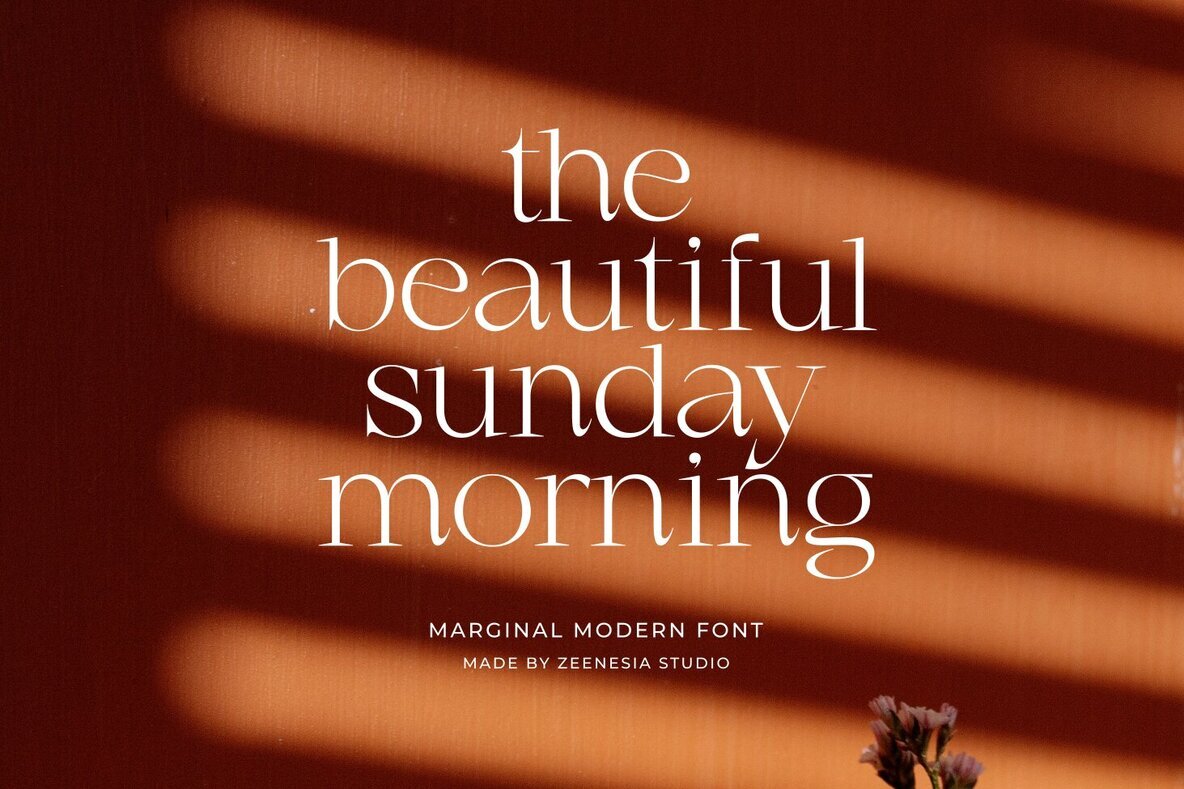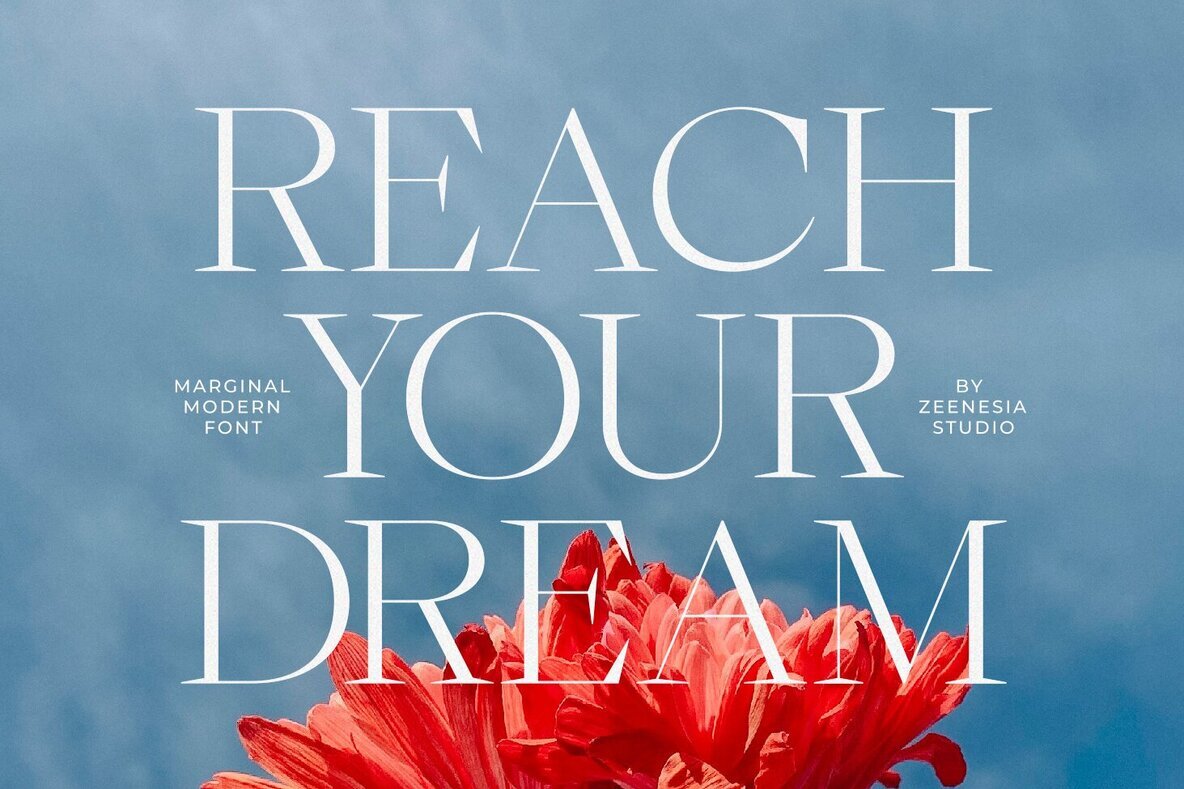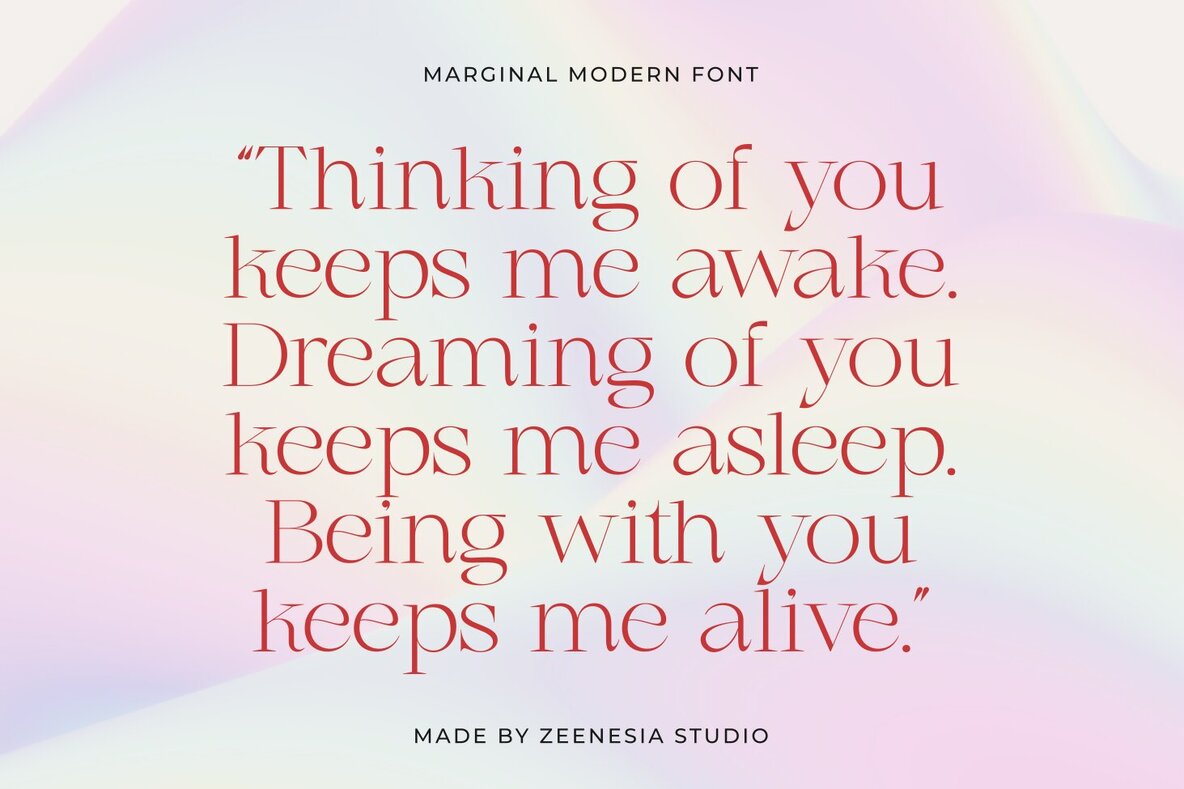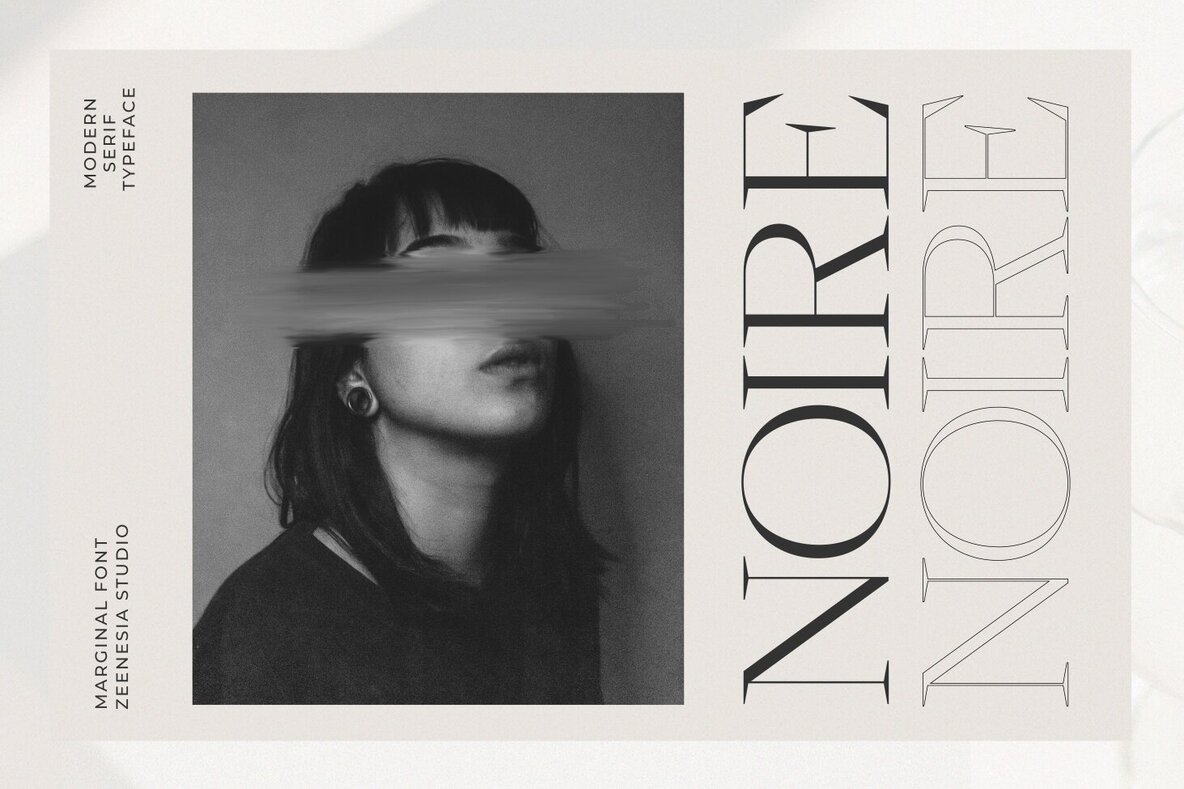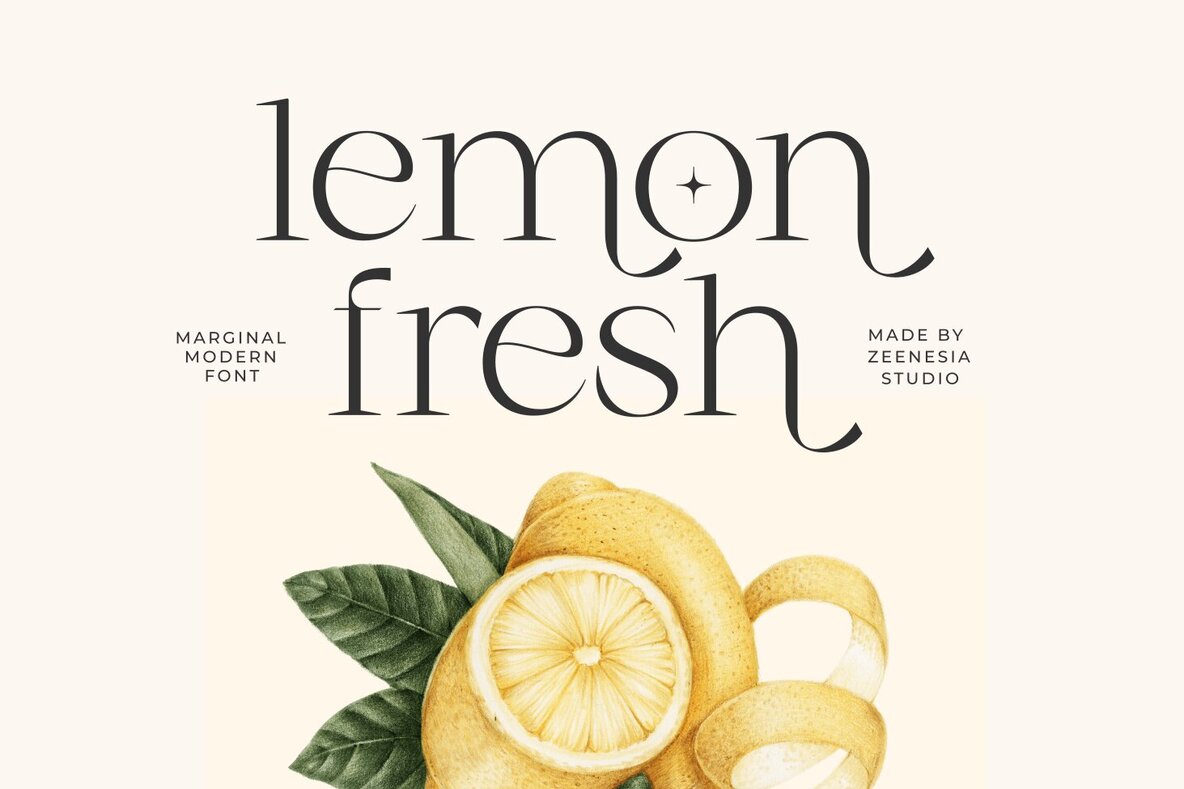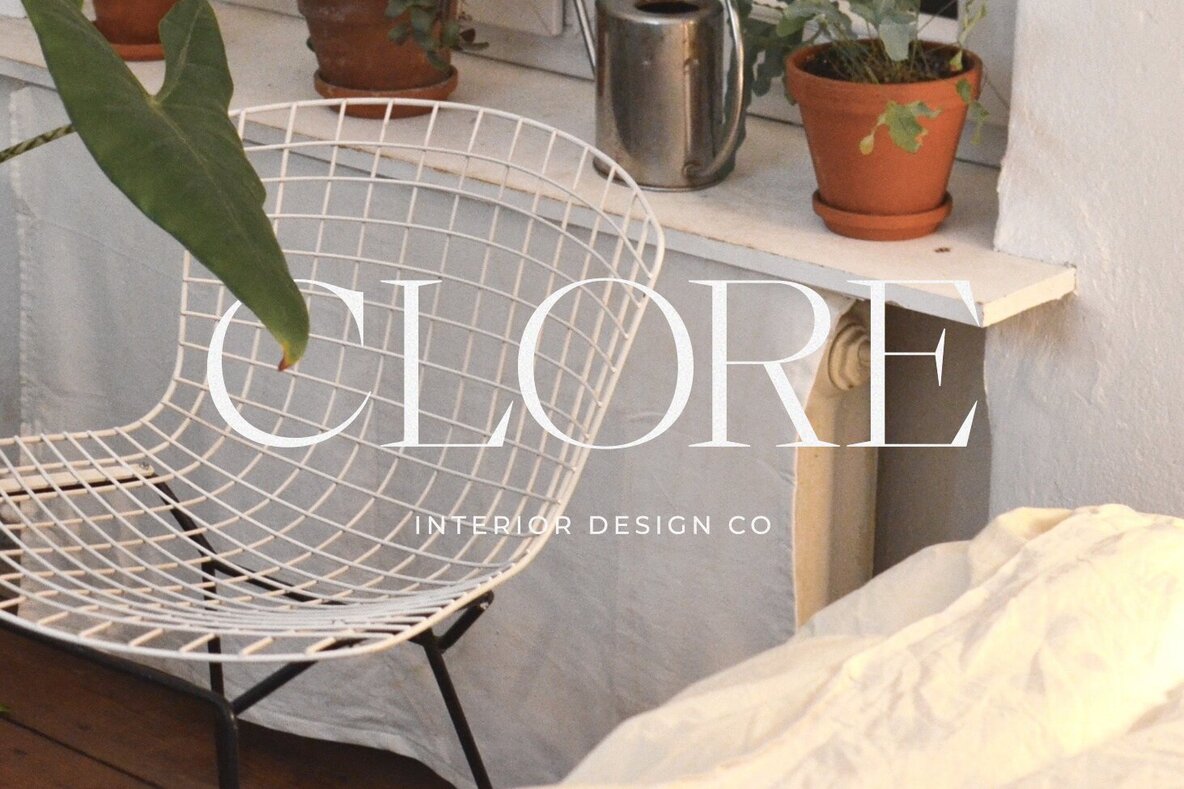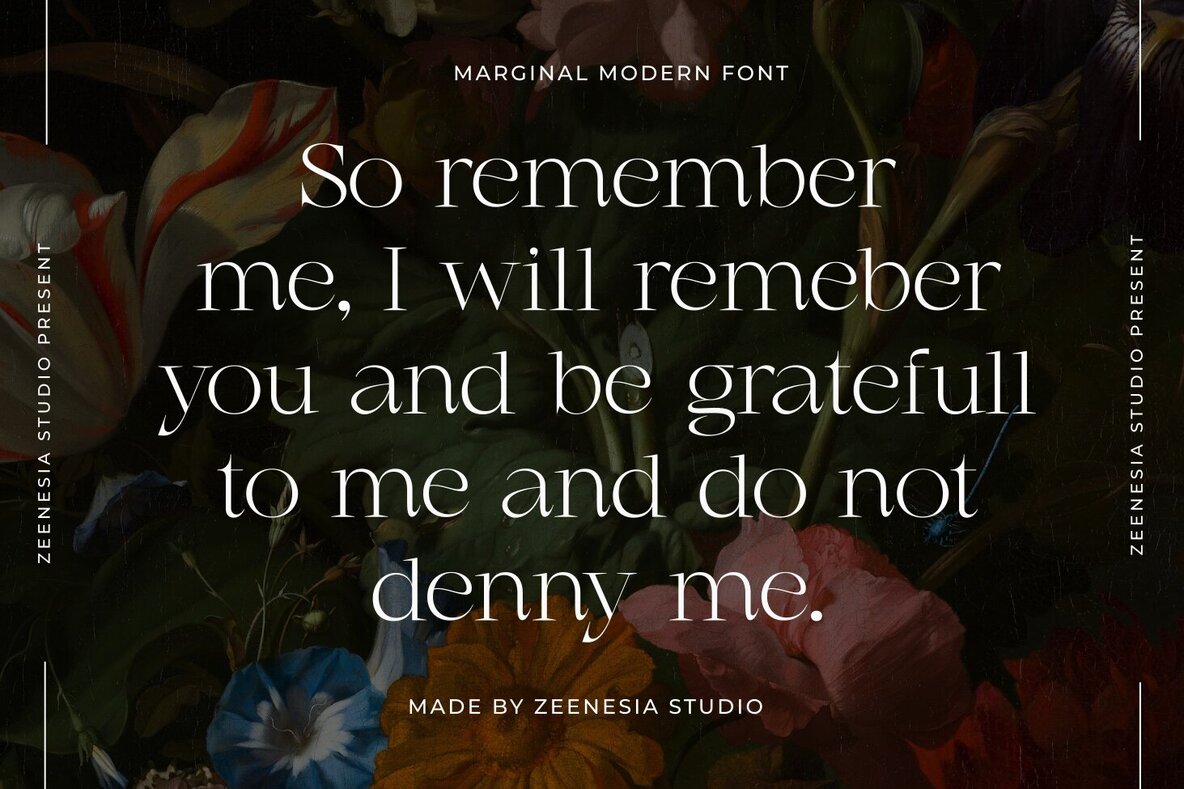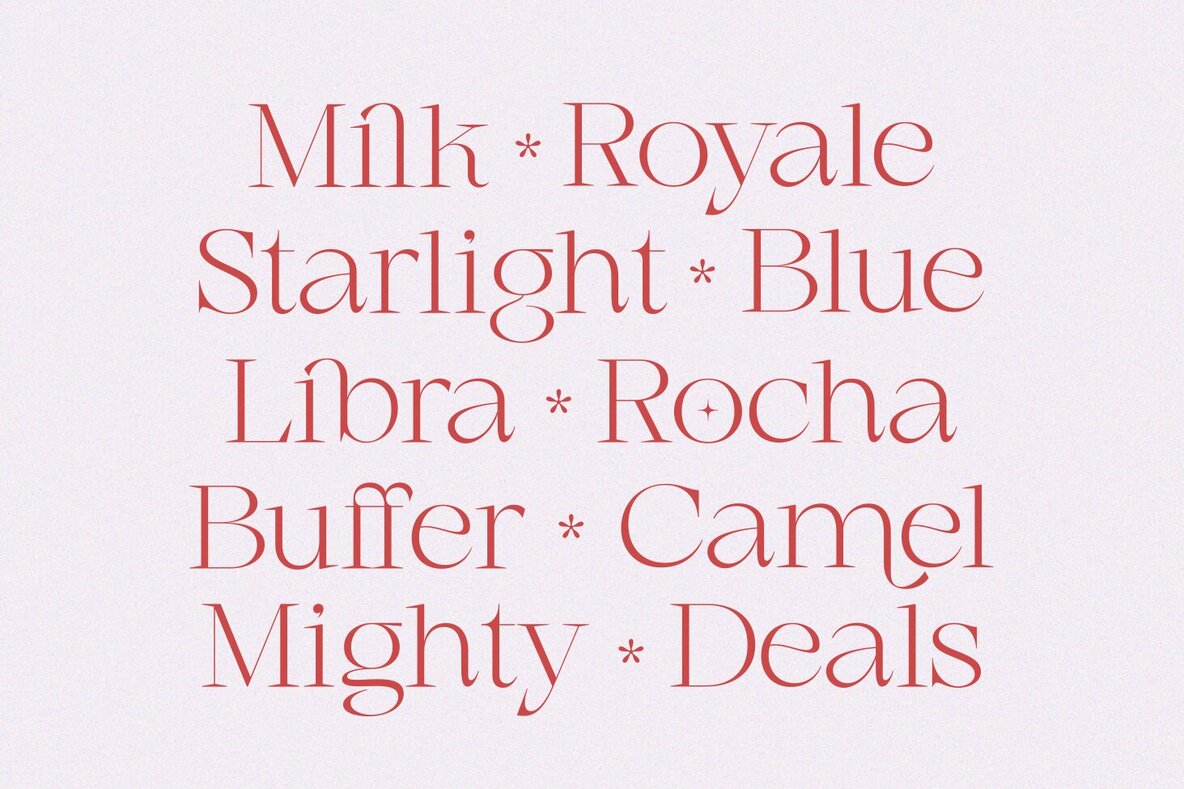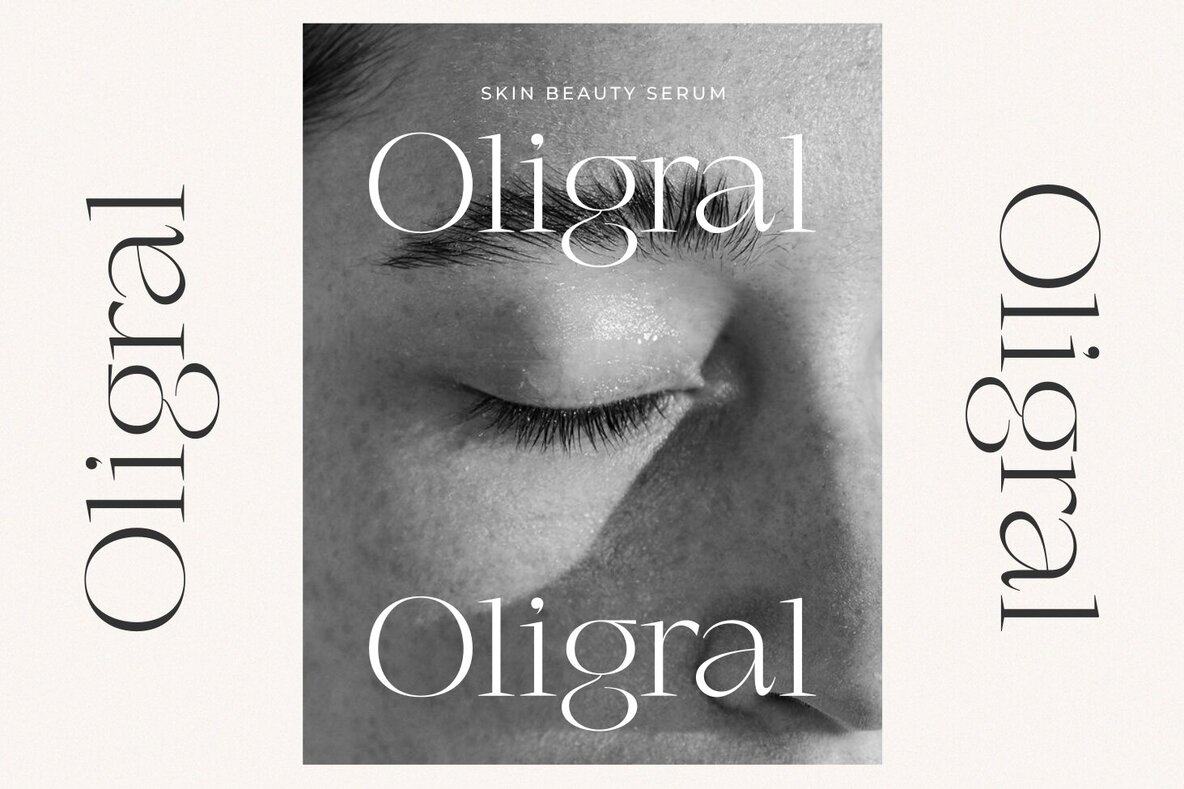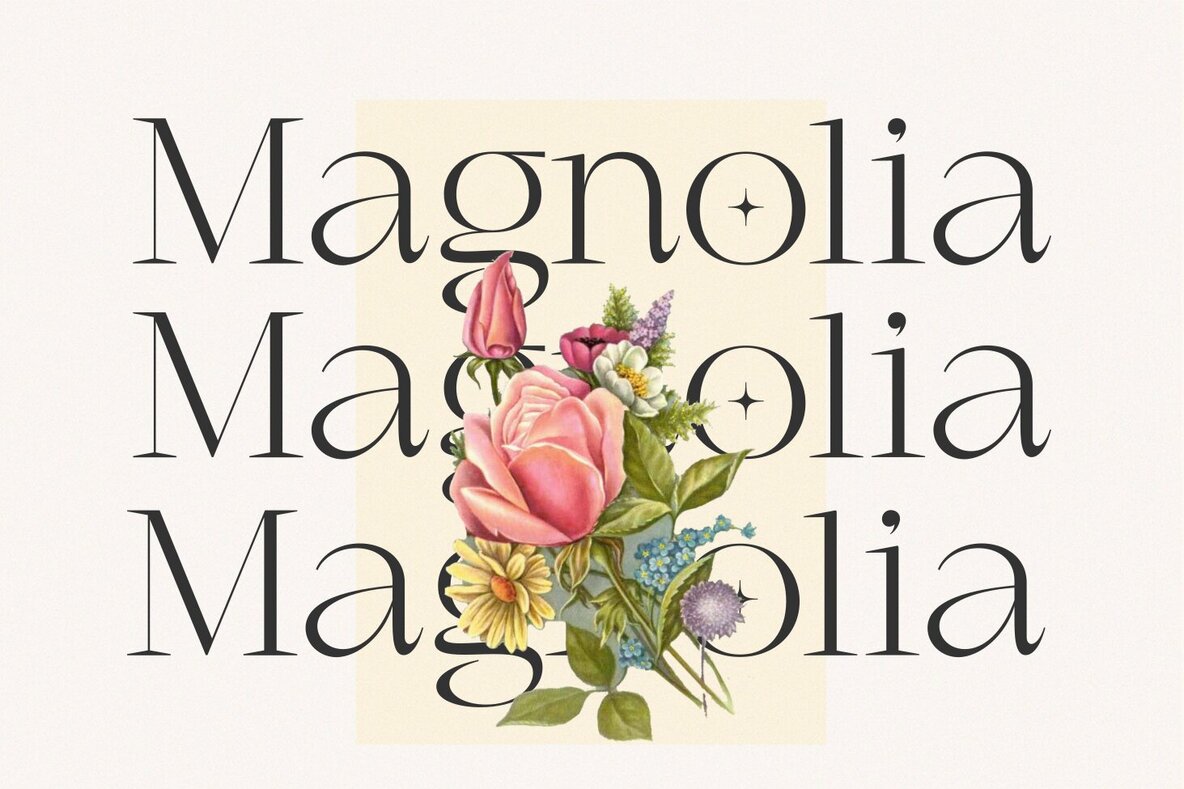
Marginal Font
Marginal Regular
Marginal is an elegant display font featuring a sophisticated serif style. Blending modern and classic elements, Marginal provides a unique and distinctive look, making it an excellent choice when you need a touch of fun in your projects. This font is perfect for editorial projects, logo design, clothing branding, product packaging, magazine headers, or as a stylish text overlay on any background image.Marginal: Elegant Display Serif Font